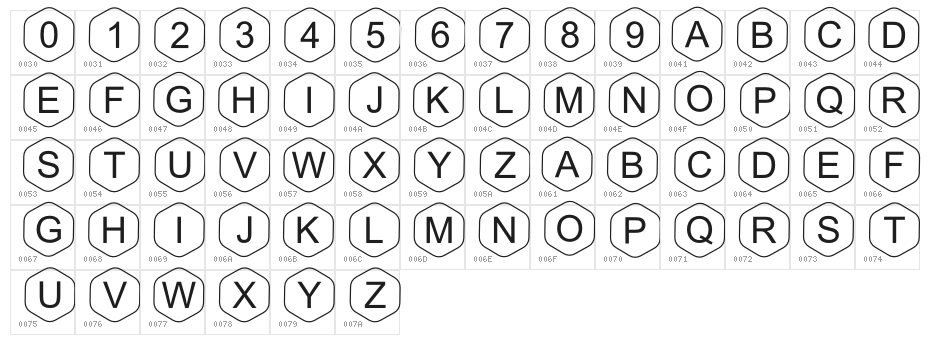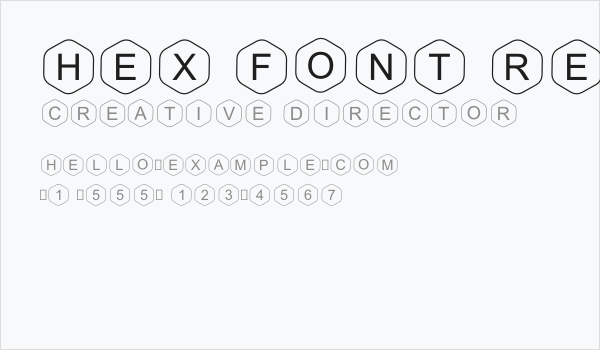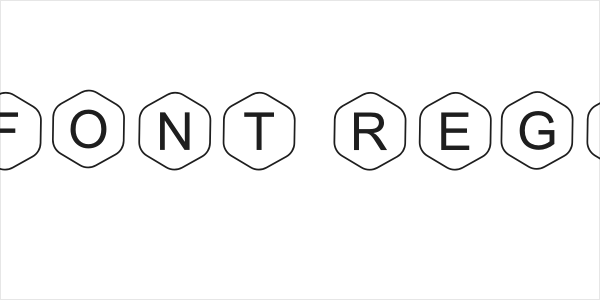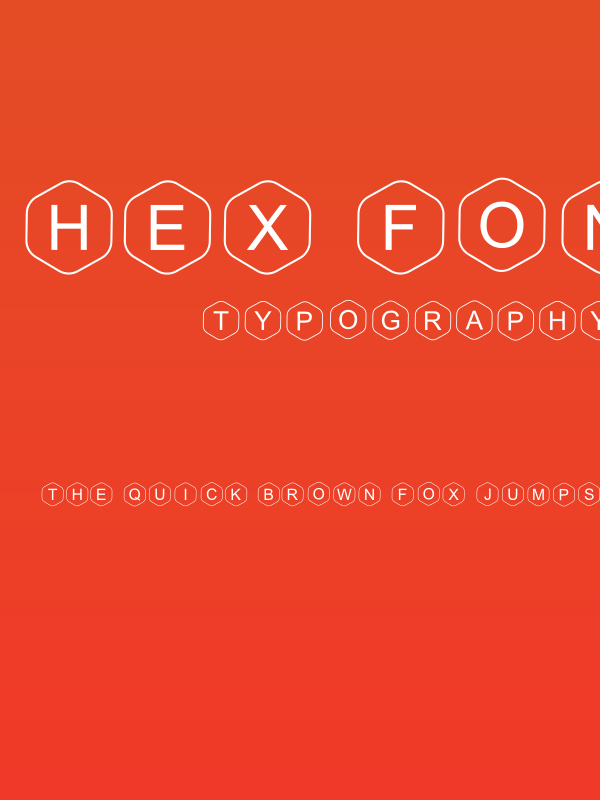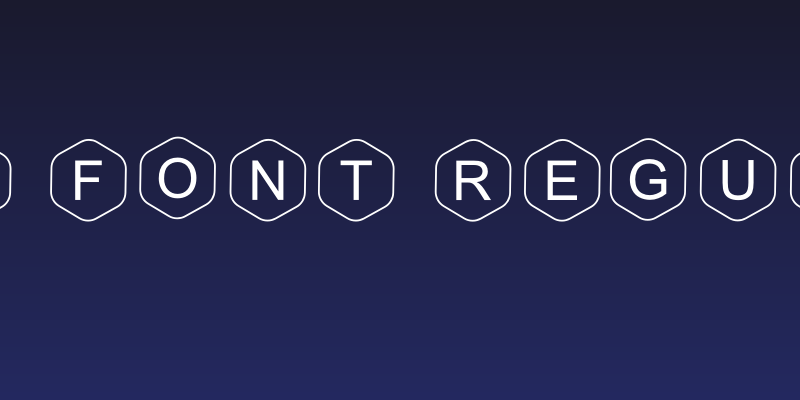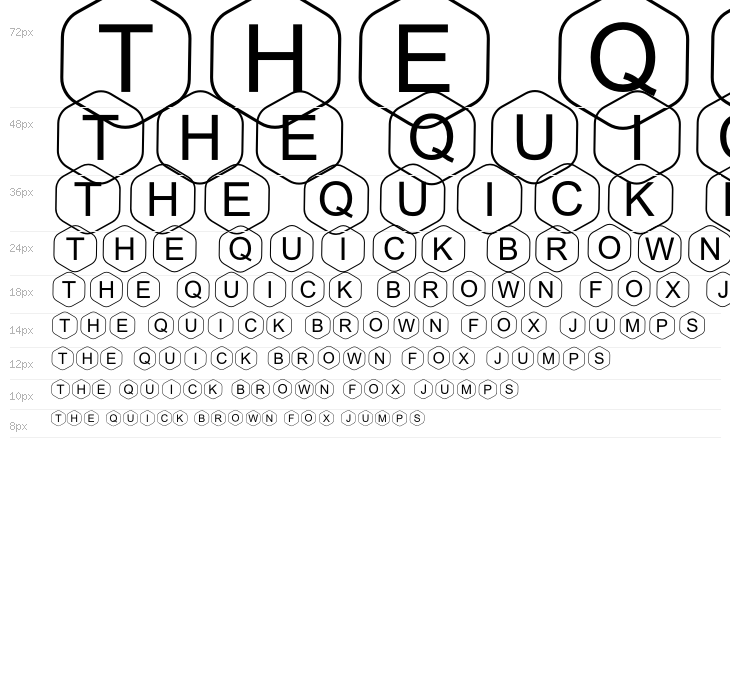
HEX Font Regular Font
HEX Font Regular Description
This font features characters enclosed within hexagonal shapes, creating a unique and geometric appearance. The letters and numbers are centered within each hexagon, providing a consistent and structured look. The style is clean and modern, with a focus on symmetry and balance. The characters are bold and clear, making them easily readable despite the decorative hexagonal borders. This design is ideal for projects that require a futuristic or tech-oriented aesthetic, as the geometric shapes add a layer of complexity and interest.
| Proposed Projects | Ideal for tech branding, futuristic designs, digital interfaces, and creative posters. |